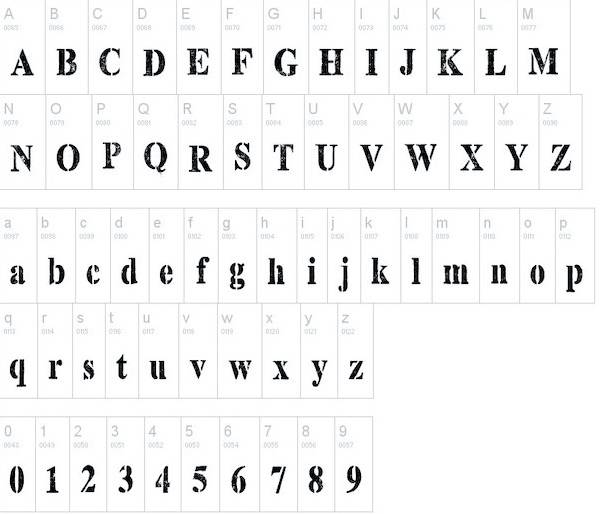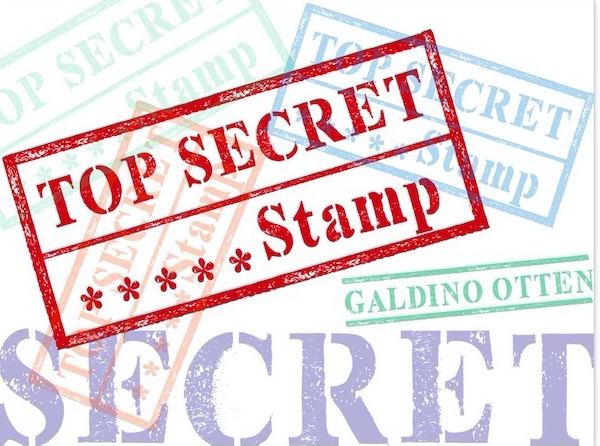
Top Secret Stamp is a casual and retro stencil font that was created and shared by Galdino Otten along with an incredibly friendly look. It will turn any creative idea into a famous piece of design product.
Top Secret Stamp Display Font
Designer, Publisher: Galdino Otten